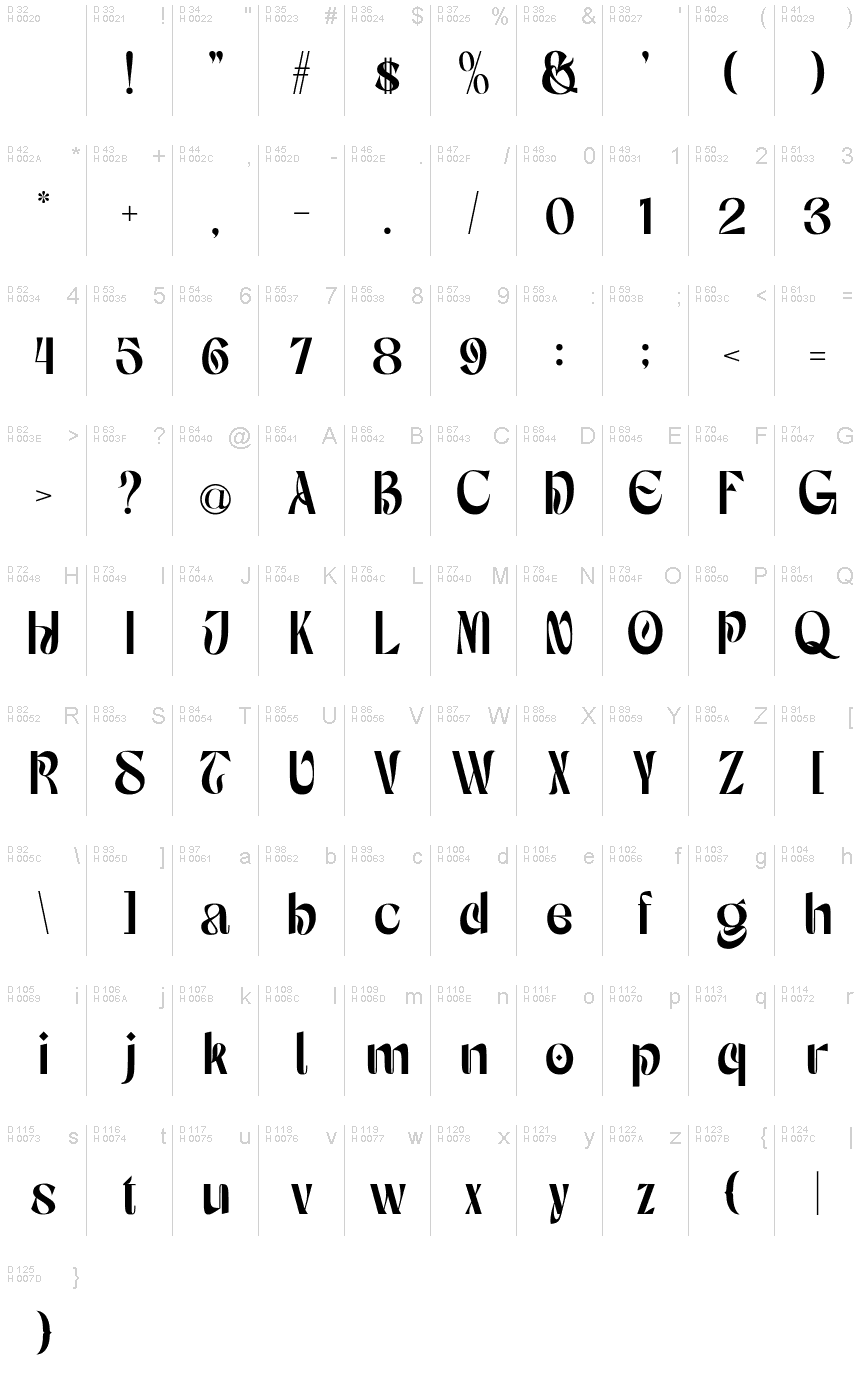
Monas Demo Regular
Monas, designed by Suandana Ipandemade, is a display font that encapsulates the spirit of the groovy and retro era with a modern twist. Its semi-bold weight and semi-condensed width create a striking balance, making it an excellent choice for designers looking to infuse their work with a nostalgic yet bold aesthetic.
The fluidity of Monas' curves paired with its distinctive letter shapes provides an eye-catching allure that harkens back to the iconic styles of the past while remaining fresh and contemporary. The playfulness of its groovy design elements suggests movement and energy, which can add life to any creative project.
With its strong presence and unique style, Monas is particularly well-suited for branding projects, poster designs, music album covers, or any platform that desires a touch of vintage flair without sacrificing readability. Its charm lies in its ability to stand out in visual compositions while remaining harmonious and engaging.
Whether you are crafting a hip café menu or designing an event flyer that needs to pop off the page, Monas offers versatility for creatives seeking to make an impact with their typography choices.